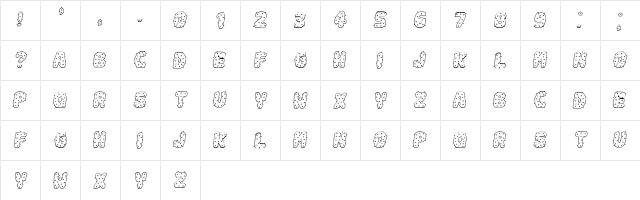
Spiky Italic
Design Context for Spiky Typeface
Spiky is a composed and adaptable typeface that performs quietly and consistently across a wide range of design contexts. Its italic angle brings a sense of urgency and motion to the letterforms.
Pro Tip: Try Spiky for annotation and caption copy alongside an upright companion — the contrast in angle creates a dynamic but ordered typographic system.